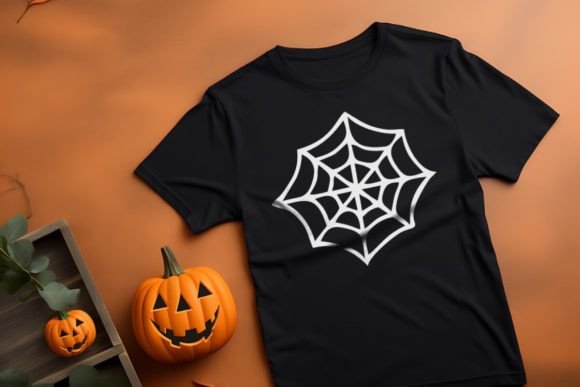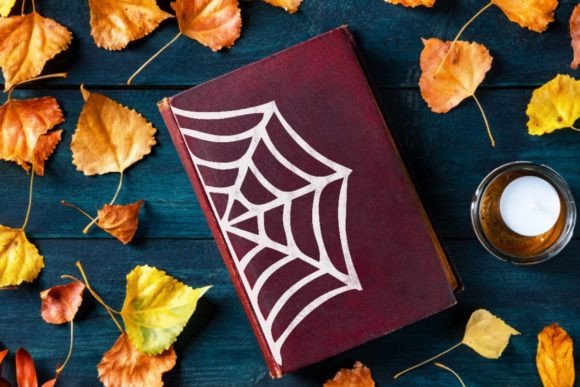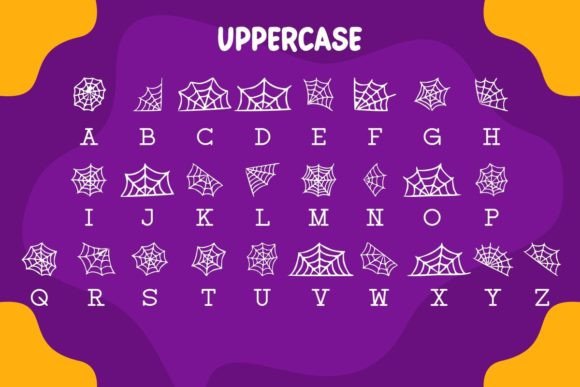
Introduction to Scary Spider Web Font
Have you ever stared at a blank canvas, struggling to find the perfect design element to bring your creative project to life? The spark of inspiration often strikes when we least expect it – and for many designers, the eerie charm of Halloween is the perfect catalyst. As the leaves change colors and the air grows crisp, the Scary Spider Web Font beckons, offering a unique opportunity to infuse your designs with an air of mystery and intrigue.
With its intricate web designs and spooky Halloween elements, this meticulously crafted font is a game-changer for designers seeking to elevate their high-quality projects. The transparent background and wide range of characters make it an ideal design resource for anyone looking to add a touch of whimsy to their work. And the best part? It’s available for free download, making it a valuable addition to any designer’s toolkit.
About the Scary Spider Web Font
Key Features of Scary Spider Web Font
- Unique, high-quality design perfect for creative projects and Halloween-themed designs.
- Features a transparent background, allowing for easy layering and composition in your design.
- Perfect for adding a spooky touch to your designs, from invitations to posters and more.
Honest Review: Scary Spider Web Font
I recently came across the Scary Spider Web Font, and I’m excited to share my honest thoughts with you. As a designer, I’m always on the lookout for high-quality design resources to elevate my creative projects.
One thing that stands out about this font is its unique and eerie design. The Scary Spider Web Font features a transparent background, which makes it perfect for creating spooky and mysterious visuals. The web-like pattern adds an extra layer of texture and depth to any design.
Here are some pros and cons of the Scary Spider Web Font:
- ✨ Unique and creative design
- ✨ High quality and crisp typography
- ⚠️ Not suitable for all types of creative projects
Overall, I’m impressed with the Scary Spider Web Font. It’s a great addition to any designer’s toolkit, especially for those working on creative projects that require a touch of eeriness. However, it’s essential to consider the limitations before using it in your design.
To get the most out of the Scary Spider Web Font, use it in conjunction with a transparent background to create a spooky effect. You can also experiment with different font sizes and colors to add depth and interest to your design.
The Scary Spider Web Font is perfect for a variety of use cases, including Halloween-themed designs, spooky invitations, and horror movie posters. It’s also great for adding a touch of whimsy to your creative project.